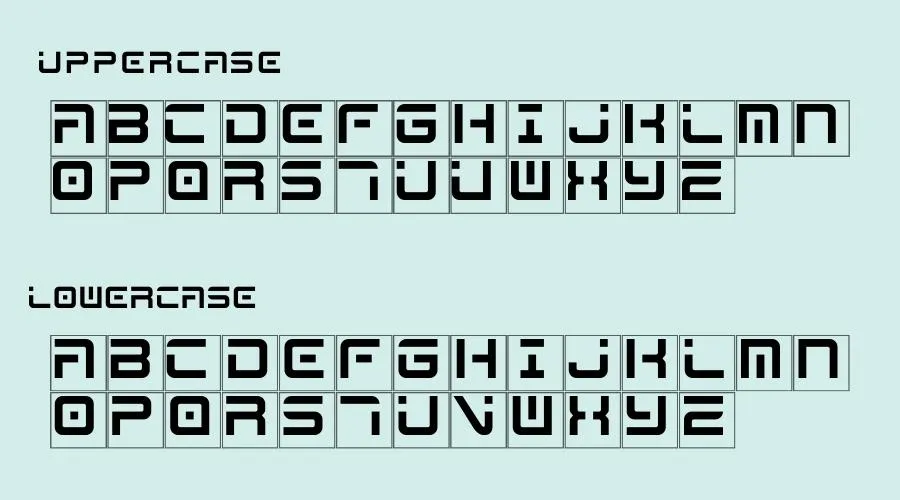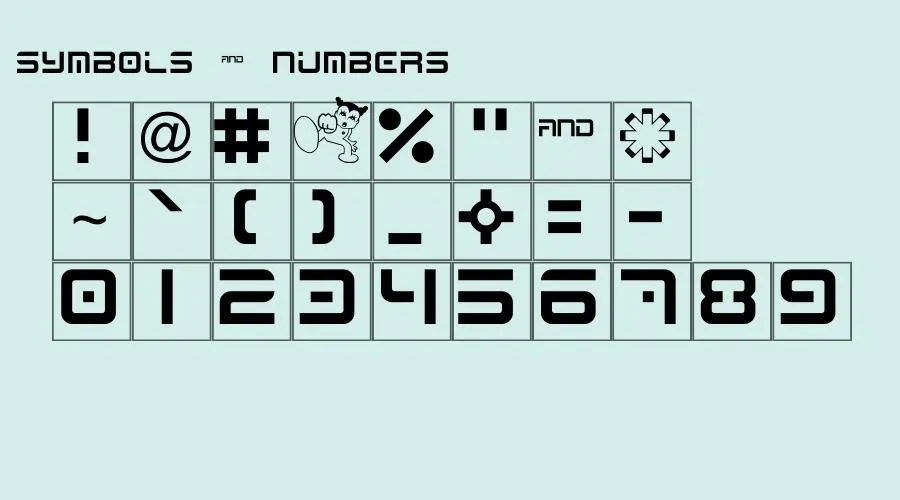
Mega By Shk Dezign Font
About Mega By Shk Dezign Font
The Mega By Shk dezign Font is an attractive techno texture family that was invented by a typographic developer known as the name of Shylock. The sub-family of this font family is Regular and the format of this typeface is TTF (TrueType), which is available for MAC and also for PC.
You can easily compare it with neon font and make attractive designs. You should choose it for all your fun methods and procedures.
Basically, this typeface can be utilized in the project prominence because of its stylish look, it is the perfect choice for logos, headlines, packaging, and business advertisements.
The Mega By Shak Dezign Font has a variety of functions and is perfect for various procedures. You may utilize this font for creating social media posts, banners, printings, cloth designs, headings, titles, and many other purposes.
You can also utilize this font for making different types of card designs, like invitation cards, office cards, business cards, and birthday cards.
You can analyze a large numeral of types in this typeface with multiple options for each letter and variation, which authorizes you to personalize your findings and plans. It supports many additional international languages like English, Greek, and Spanish.
Style Techno
What type of font is Mega By Shk Dezign Font?
The Mega By Shk dezign texture is an attractive techno texture family that was invented by a typographic developer known as the name of Shylock.
Can I use the Mega By Shk Dezign Font for a design project?
Yes, you can use the Mega By Shk Dezign Typeface in your creative tasks. It is good for signs, symbols, flags, and brochures.
Is Mega By Shk Dezign Font a good font?
Yes, it is a good typeface, and can utilize it in many projects like invitation cards, business cards, printings, and much more.